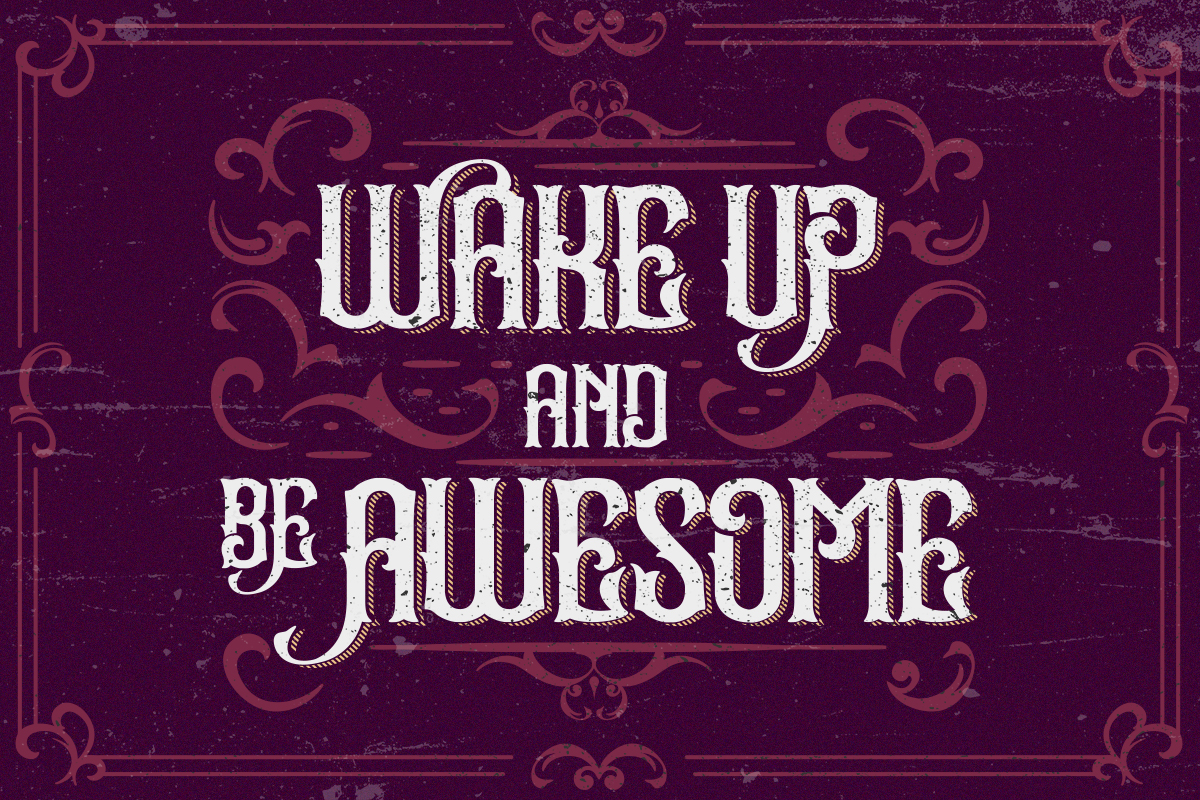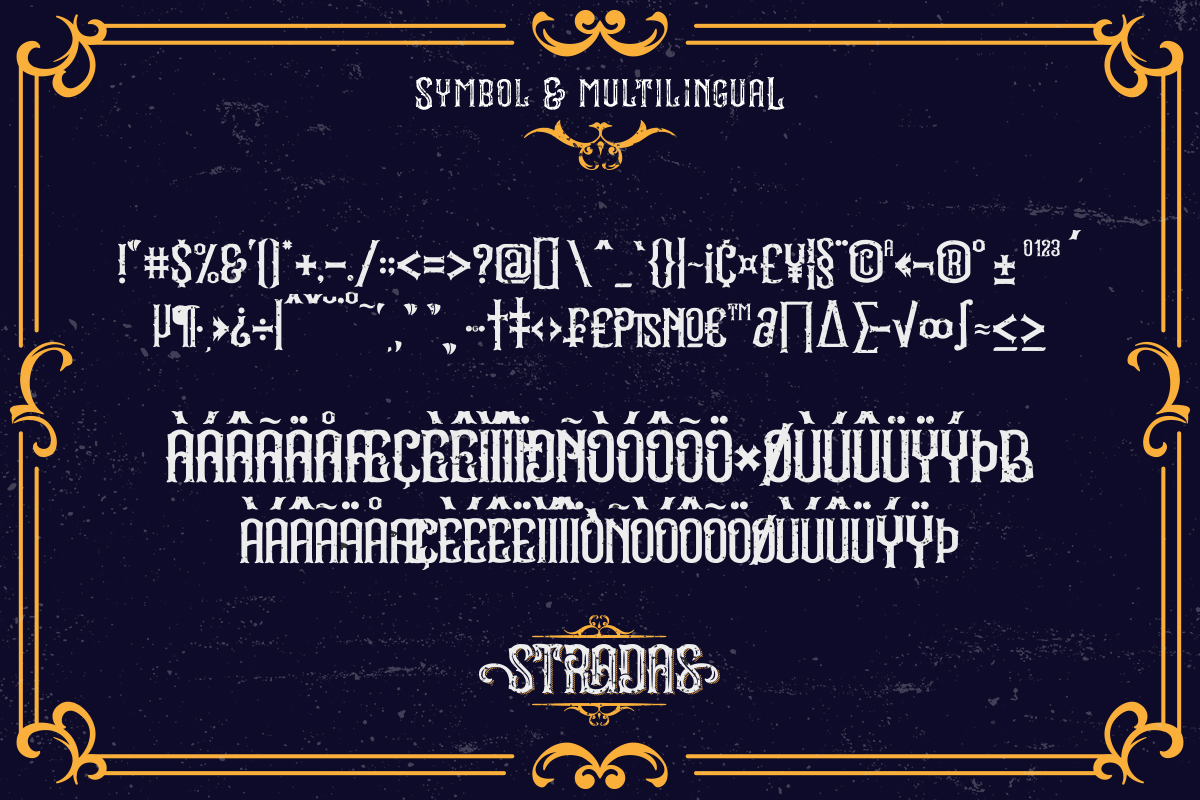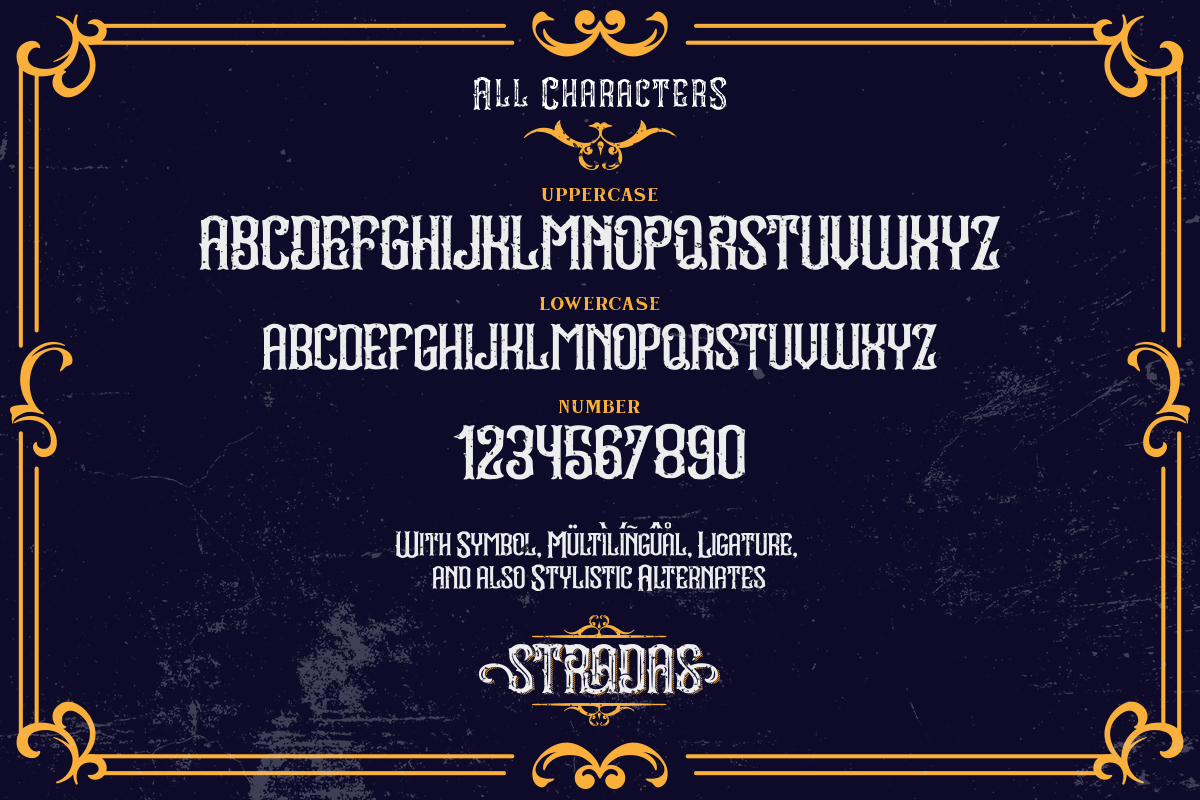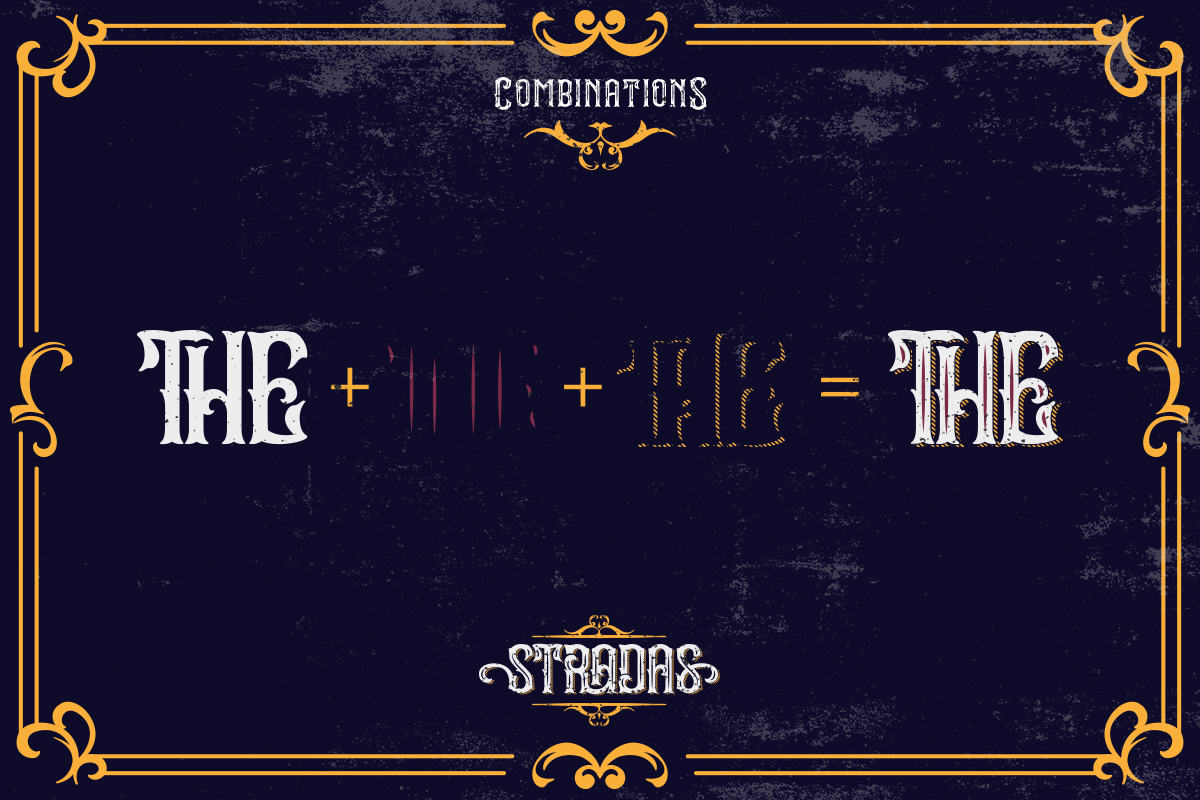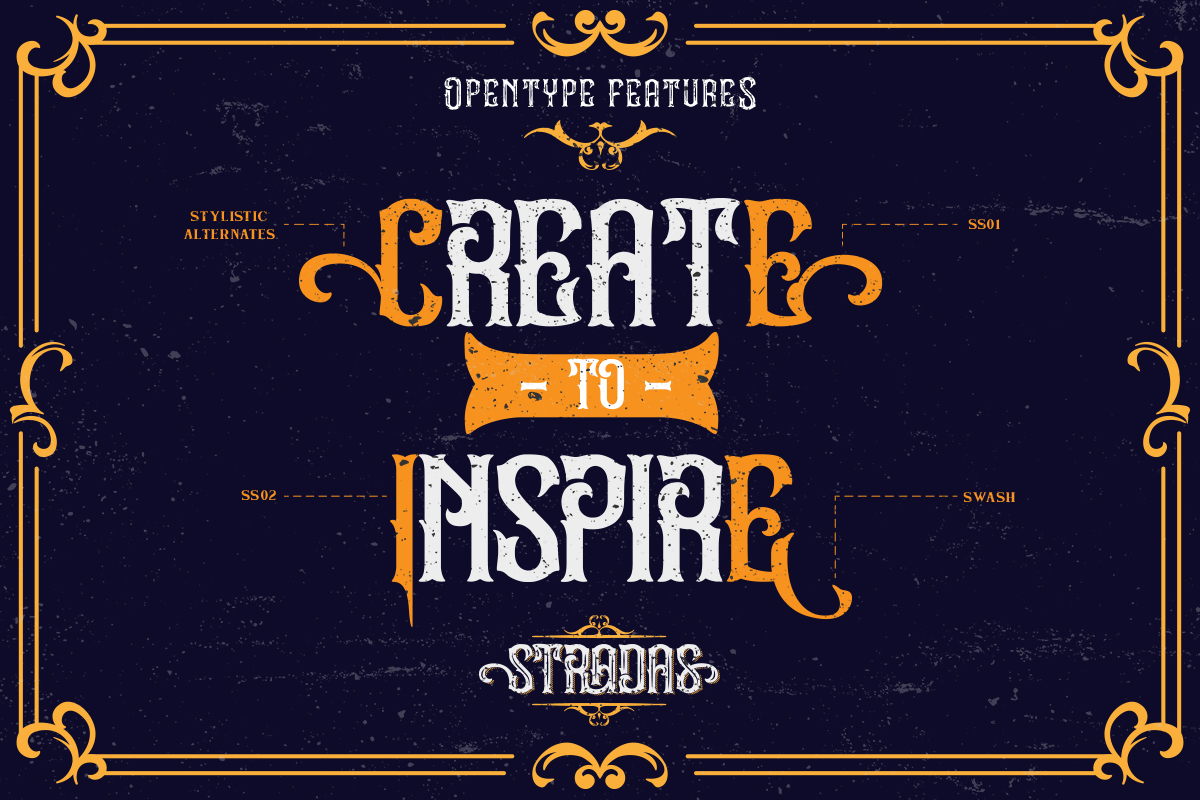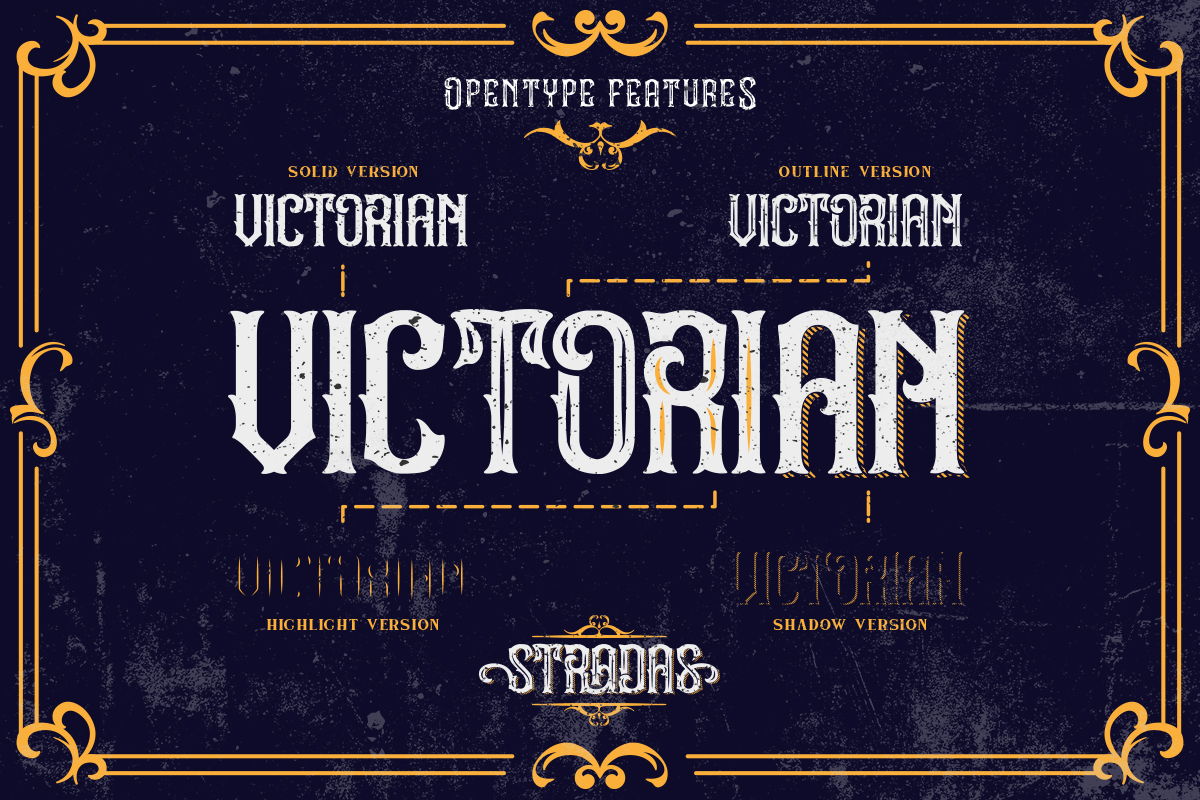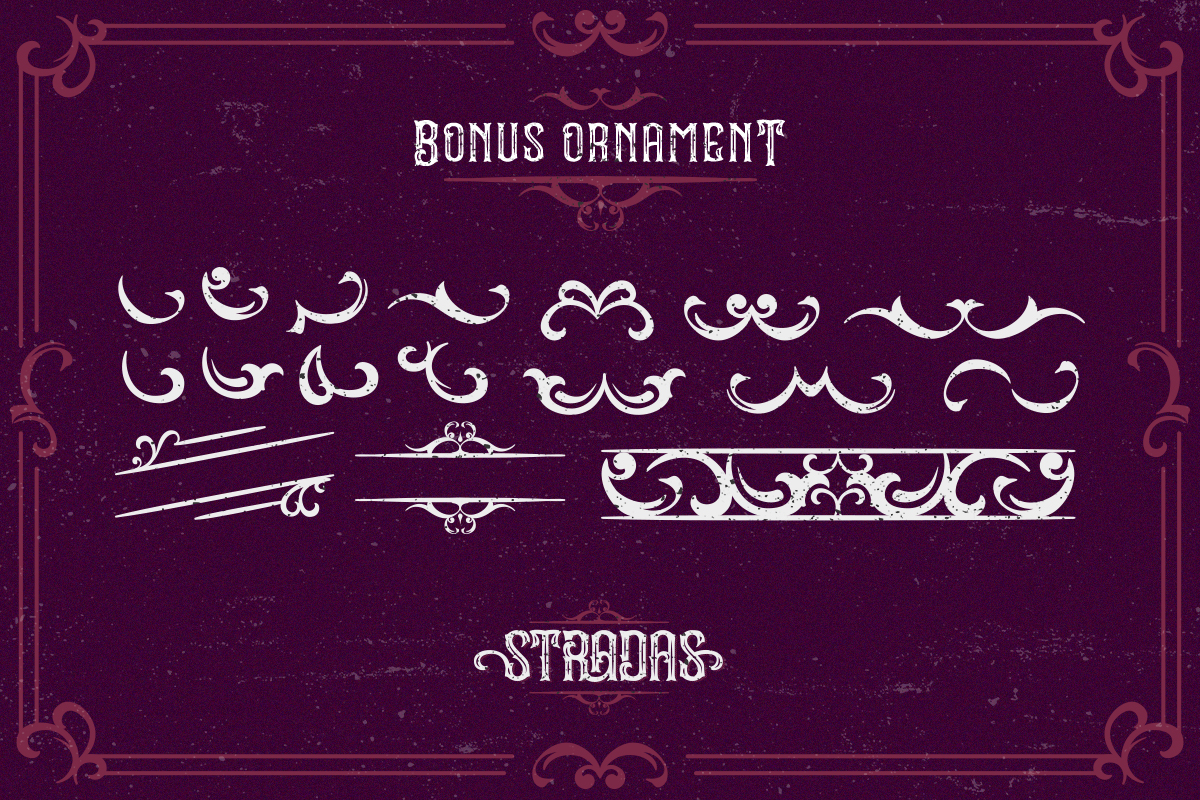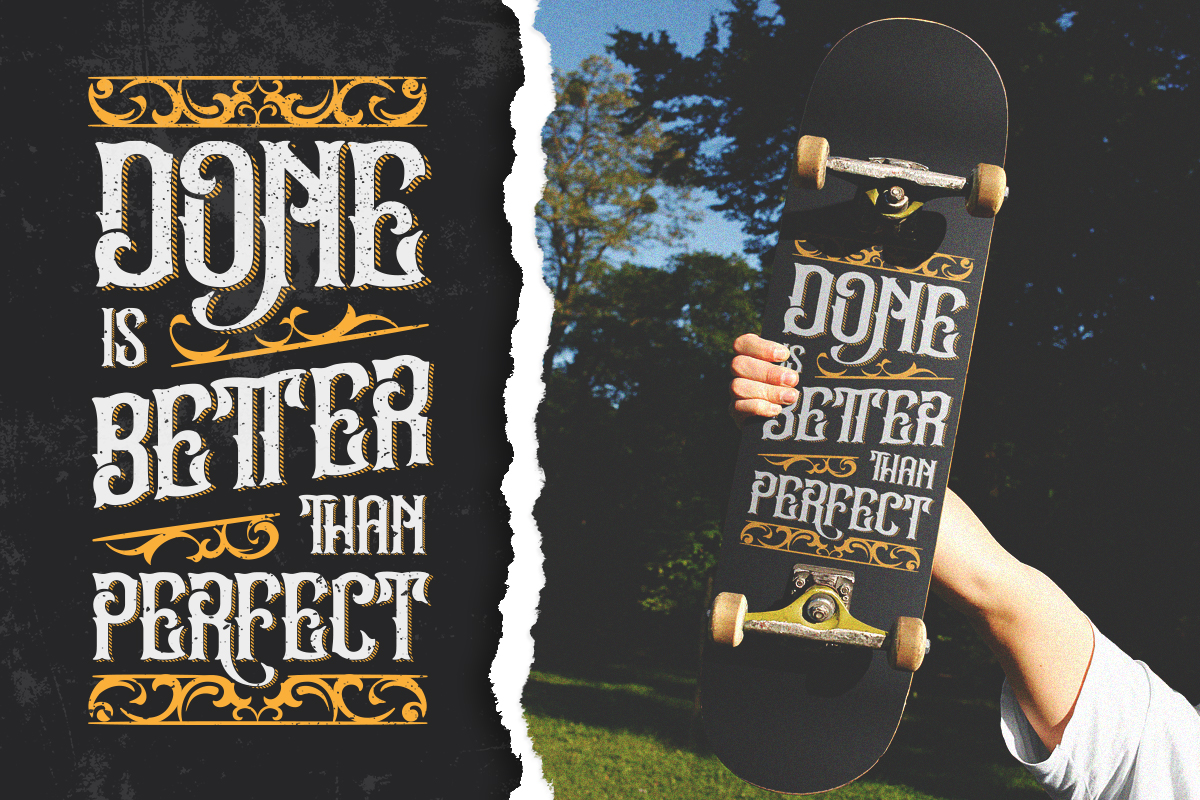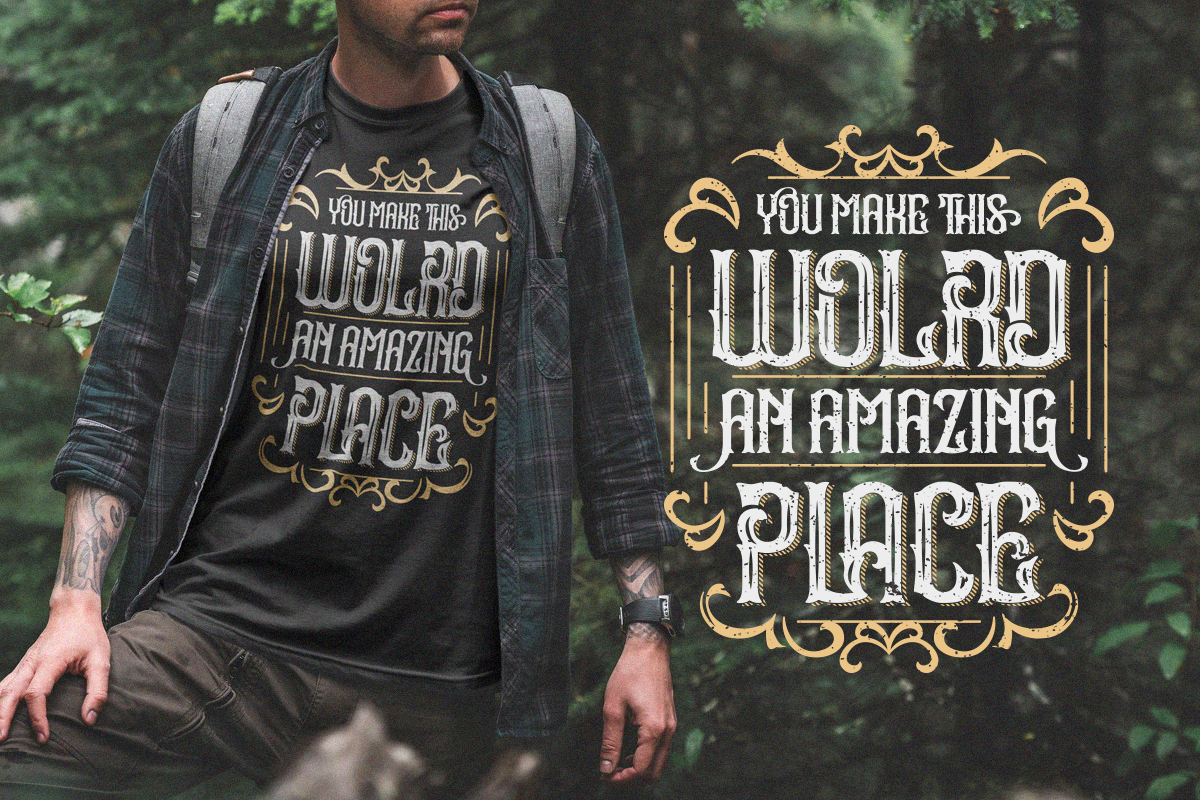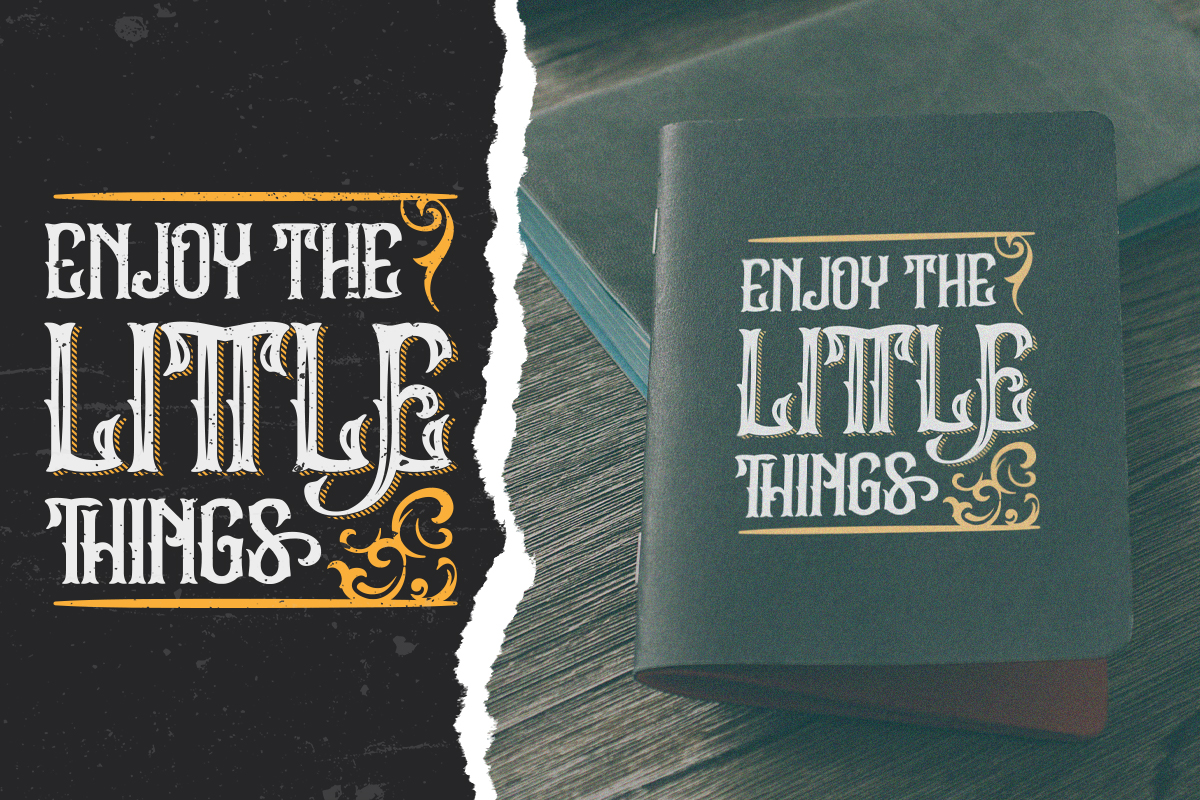
Stradas
Stradas is a bold and charismatic script font that harks back to the charm of vintage signage. The uppercase letters of Stradas command attention with their bold presence and classic styling. Each letter is meticulously crafted with bold strokes and intricate details, capturing the essence of vintage signage and typography. As a bonus, this font gives ornaments. In addition, enjoy the features here.
- Alternates
- Multilingual Supports
Stradas fits in headlines, logos, posters, flyers, branding materials, print media, editorial layouts, and many more designs. Find out more ways to use this font by taking a look at the font preview.